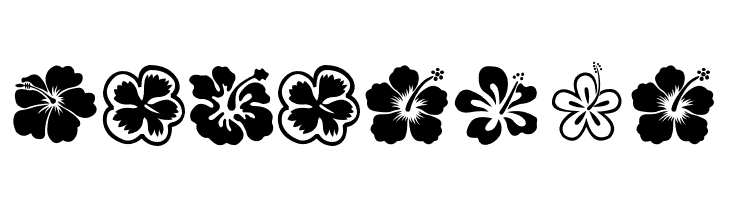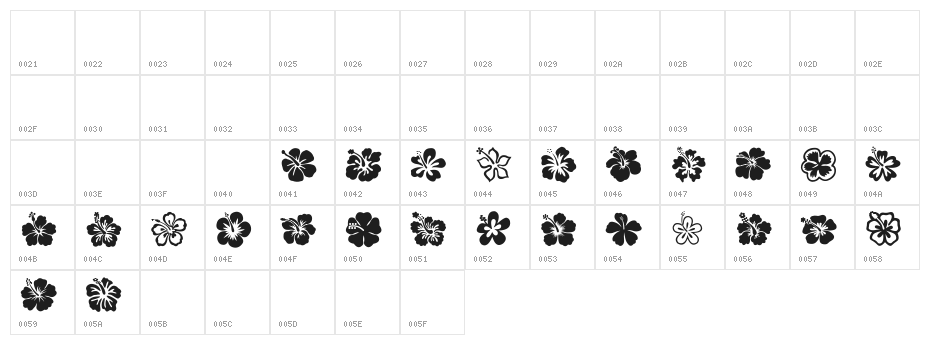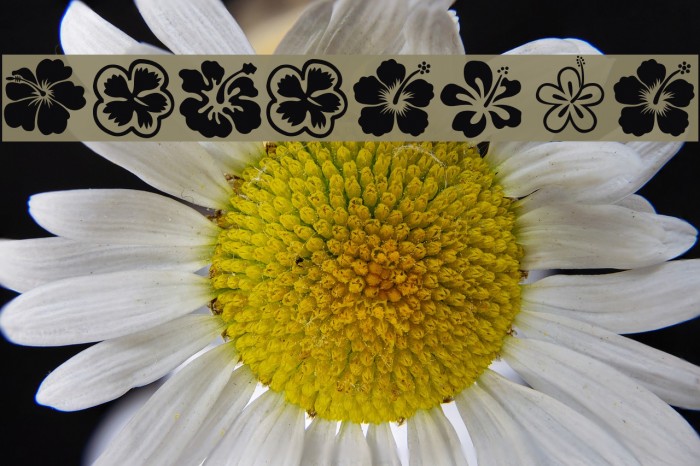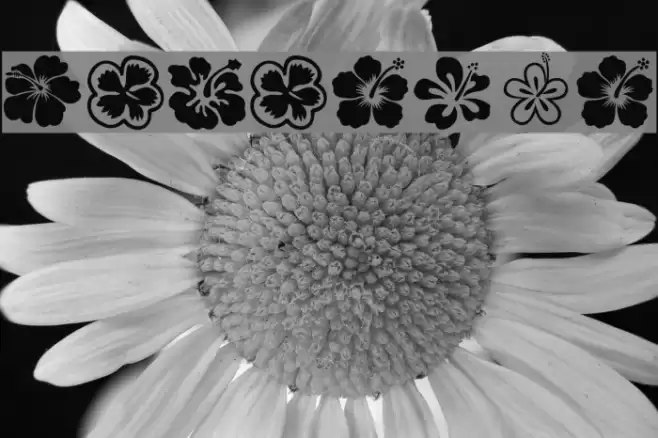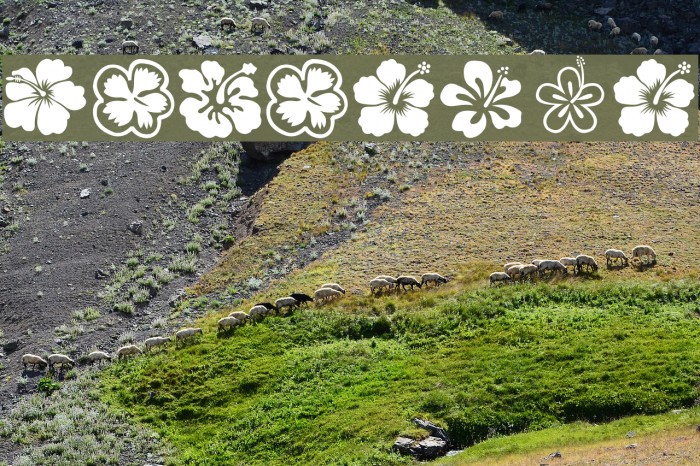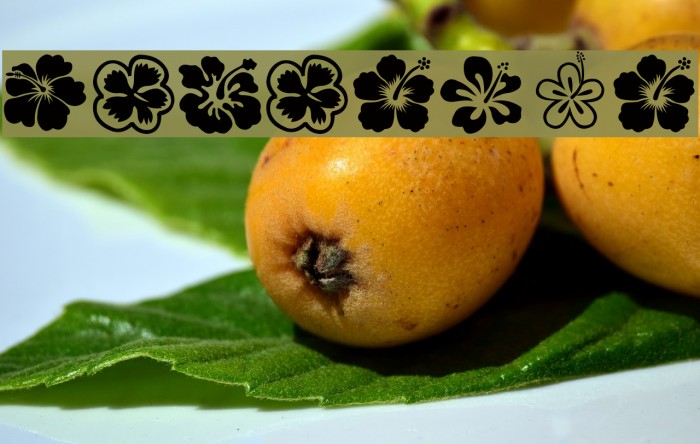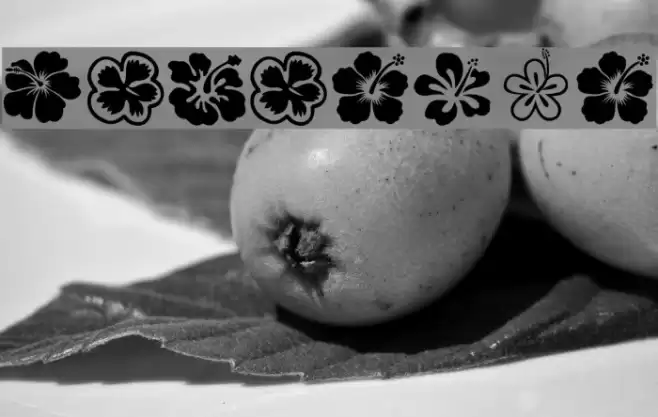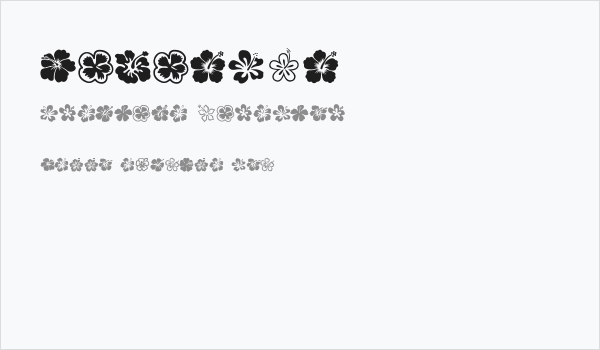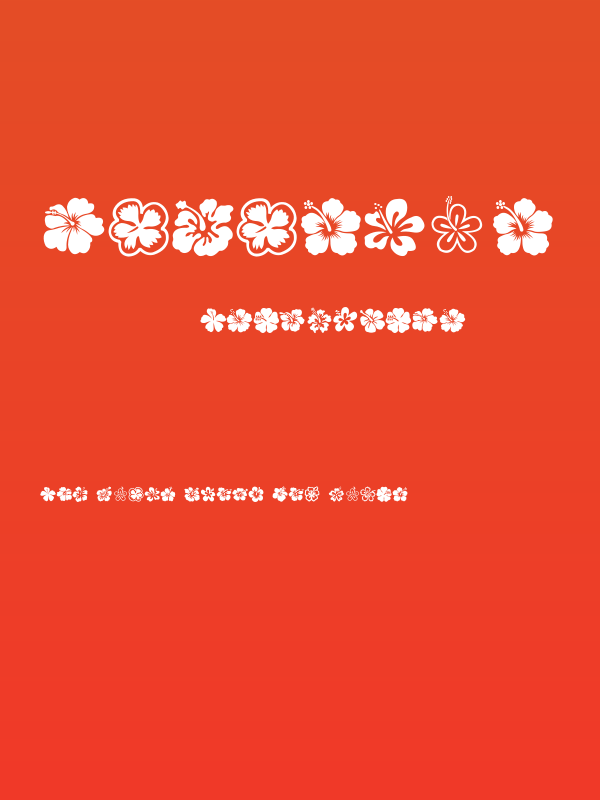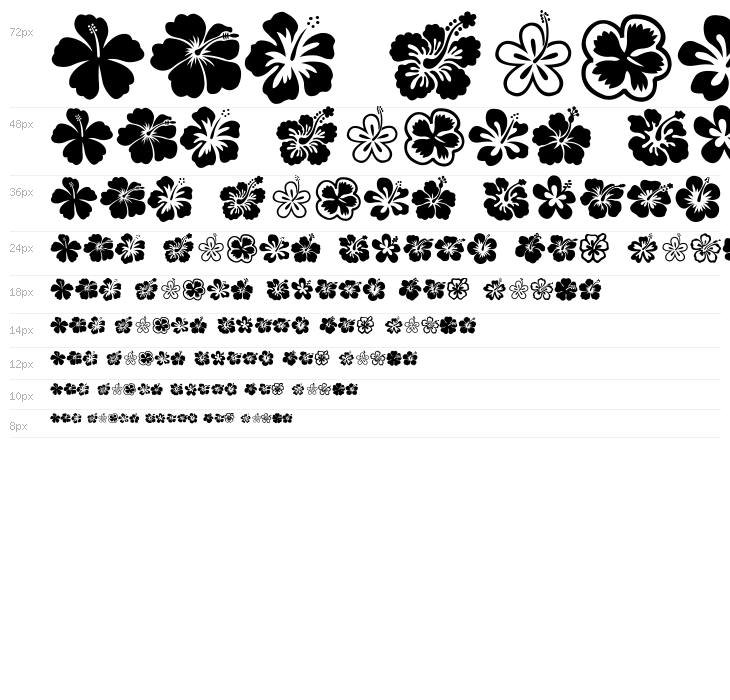
Hibiscus Font
Hibiscus Description
A decorative display typeface featuring various stylized hibiscus flower illustrations in place of standard alphanumeric characters and symbols. The glyphs are bold, high-contrast, and primarily black with some negative space details, evoking a tropical, playful aesthetic.
| Overall Style | Decorative, Playful, Tropical |
| Use Case | Logos, Headlines, Posters, Themed Graphics |
| Proposed Projects | Tropical-themed invitations, summer event posters, beach party flyers, branding for floral shops, decorative headings. |